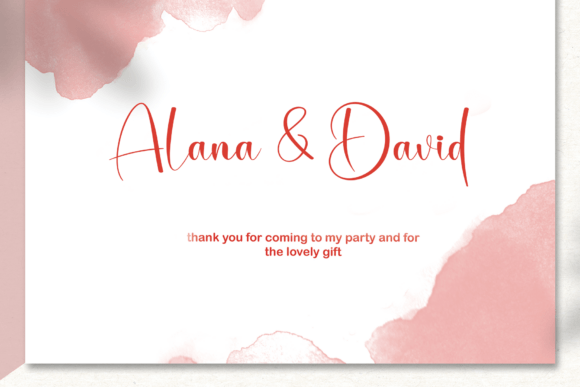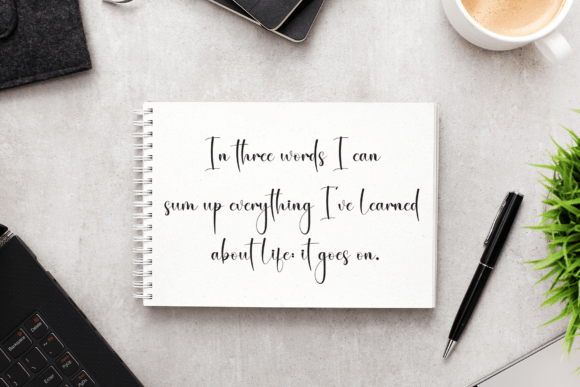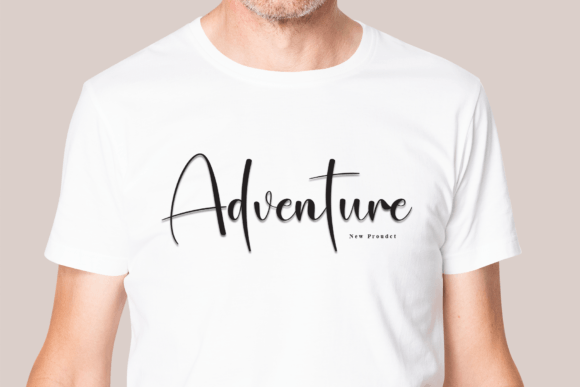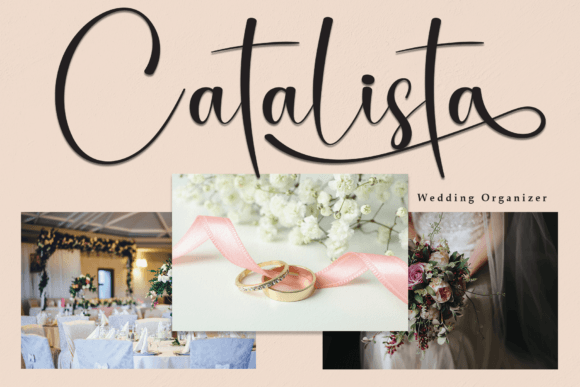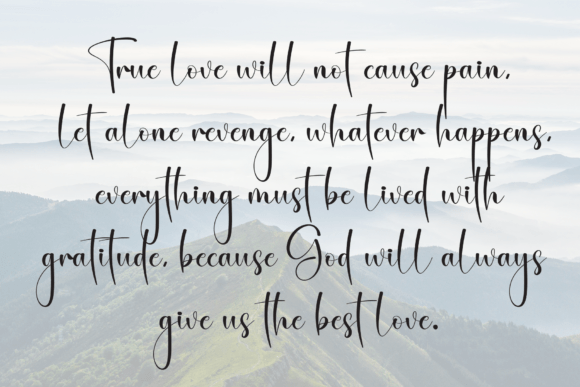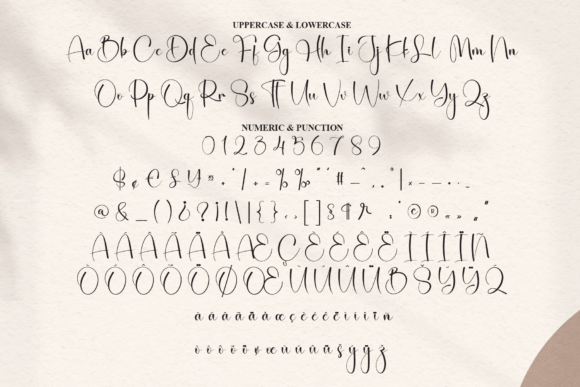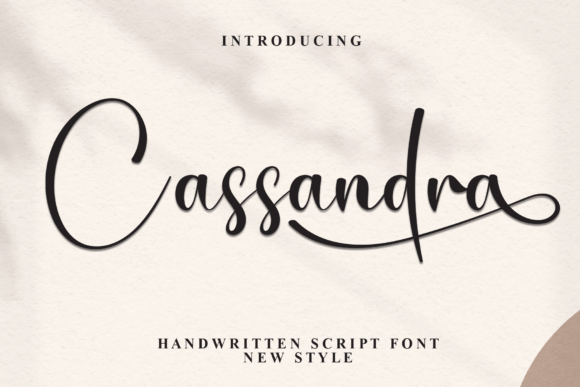
Cassandra Font: A Unique Handwritten Style for Your Creative Projects
In the world of typography, fonts play a crucial role in conveying the tone and personality of a project. For designers and crafters looking for a typeface that exudes both elegance and casual charm, the Cassandra font is an excellent choice. This handwritten font seamlessly blends bold and thin lines, creating a distinctive and stylish appearance that sets it apart from more traditional typefaces.
The Characteristics of Cassandra Font
Cassandra is a handwritten font that embodies a perfect balance of contrasting elements. Its bold lines provide a sense of strength and confidence, while its thin lines add a touch of softness and delicacy. This unique combination results in a typeface that feels both casual and elegant, making it incredibly versatile for various design applications.
One of the standout features of the Cassandra font is its personal touch. Unlike more formal, machine-generated typefaces, Cassandra has the warmth and character of handwriting. This personal element makes it ideal for projects where a human touch is desired, such as in branding, packaging, and personal crafts.
Uses of Cassandra Font
The versatility of the Cassandra font makes it suitable for a wide range of projects. Here are some of the ways designers and crafters can utilize this unique typeface:
- Branding and Logo Design: The distinctive look of Cassandra can help create memorable brand identities that stand out from the competition.
- Stationery and Invitations: Add a personal touch to letters, invitations, and greeting cards with the elegant yet casual feel of Cassandra.
- Packaging: Use Cassandra to create eye-catching packaging that conveys a sense of style and sophistication.
- Digital and Print Media: Whether it’s for a website, blog, magazine, or advertisement, Cassandra can add a unique flair to any text.
- Crafting and DIY Projects: Perfect for crafters, Cassandra can be used in various DIY projects such as handmade cards, journals, and scrapbooking.
Why Choose Cassandra Font?
There are several reasons why designers and crafters might prefer the Cassandra font over others:
- Unique Style: Cassandra offers a fresh and distinctive style that can help projects stand out.
- Versatility: Its blend of bold and thin lines makes it suitable for a wide range of applications.
- Ease of Reading: Despite its unique style, Cassandra remains highly legible, making it practical for both headings and body text.
- Personal Touch: The handwritten nature of Cassandra adds a warm, personal element to projects.
Tips for Using Cassandra Font Effectively
To get the most out of the Cassandra font, consider the following tips:
- Mix and Match: Combine Cassandra with other typefaces for contrast and visual interest.
- Play with Sizes: Use different sizes to create hierarchy and emphasize key messages.
- Adjust Line Spacing: Ensure adequate line spacing to maintain readability.
- Color Variations: Experiment with different colors to match the tone and theme of your project.
The Cassandra font is a stylish and versatile typeface that can add a unique touch to a variety of design projects. Its blend of bold and thin lines, combined with its handwritten charm, makes it an excellent choice for designers and crafters looking for a typeface that exudes both strength and softness. Whether you’re working on branding, packaging, digital media, or crafting, Cassandra is sure to make your projects stand out with its distinctive and elegant appearance.